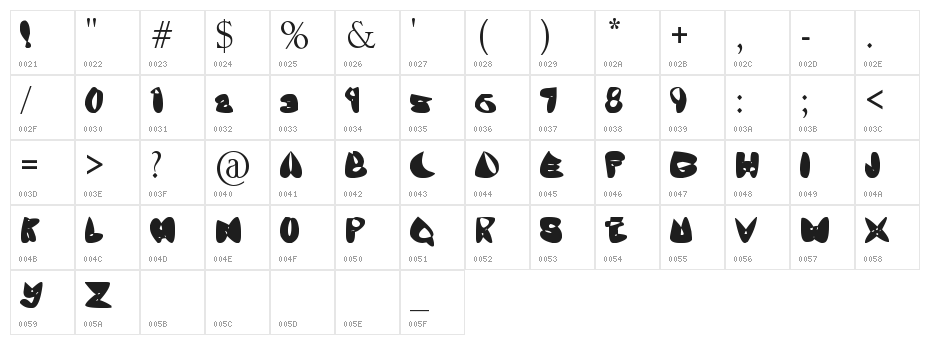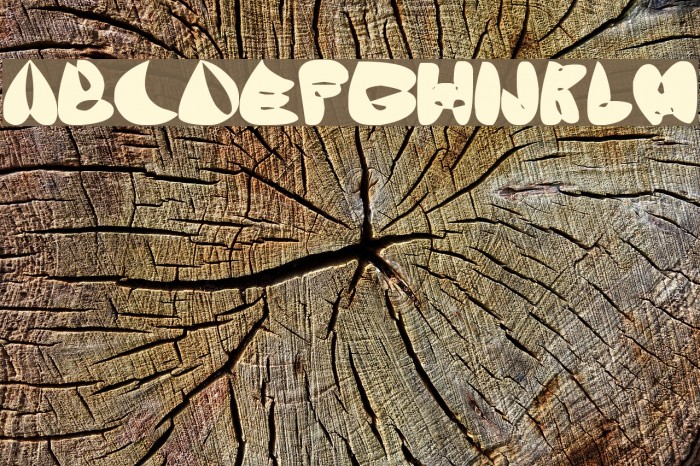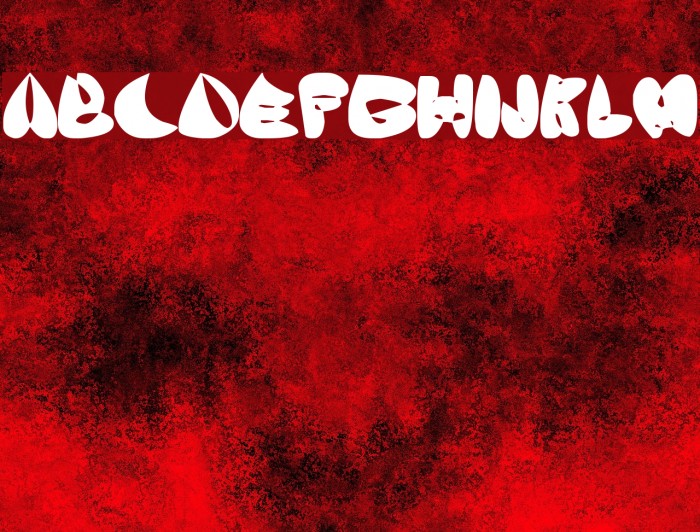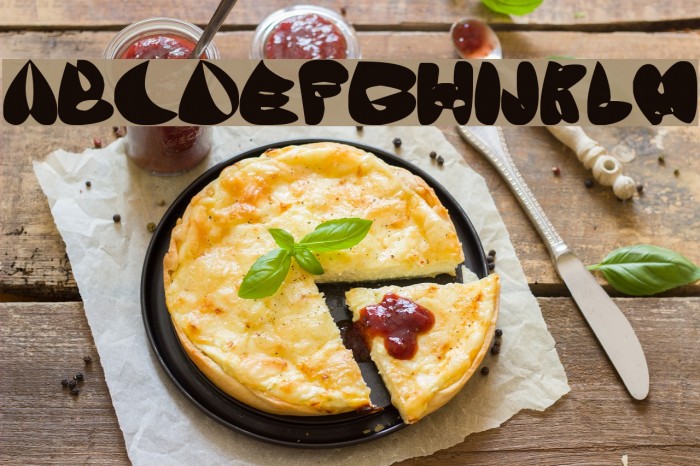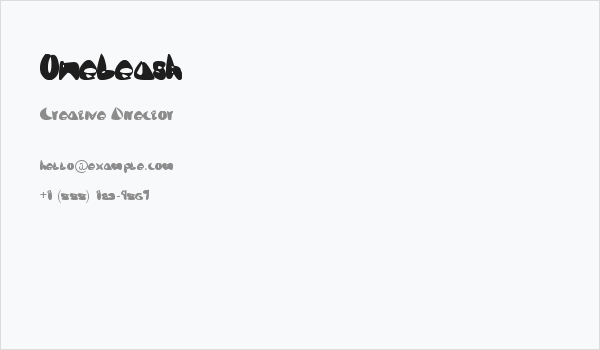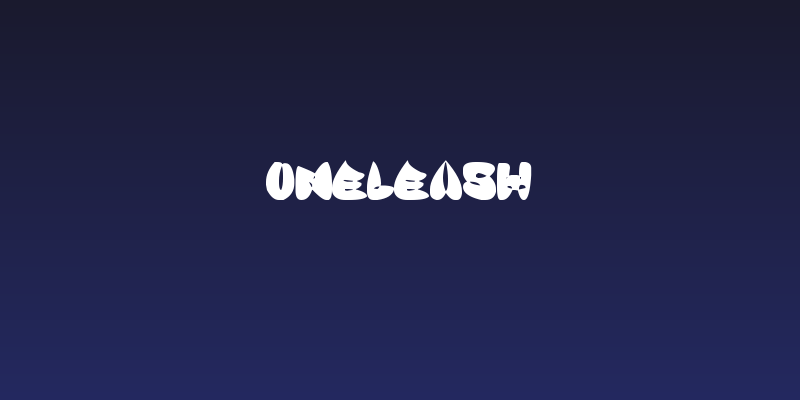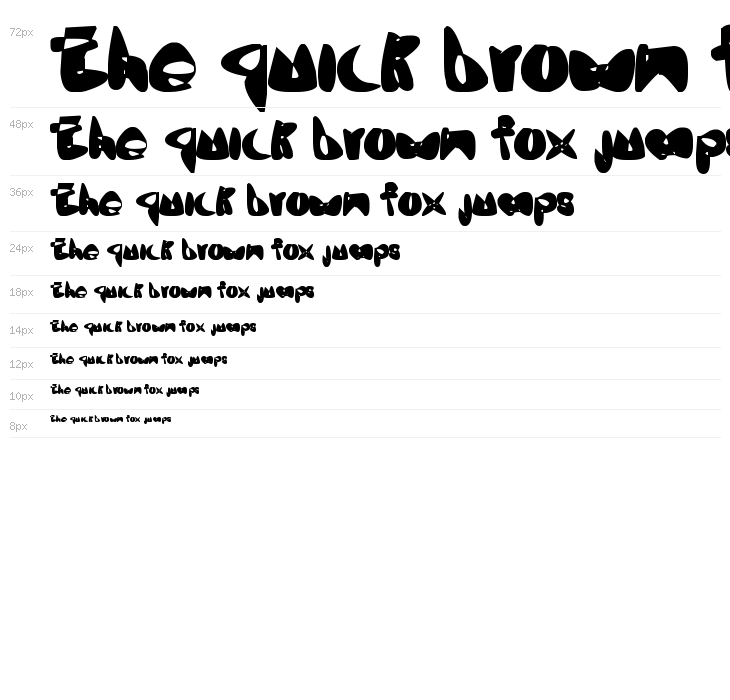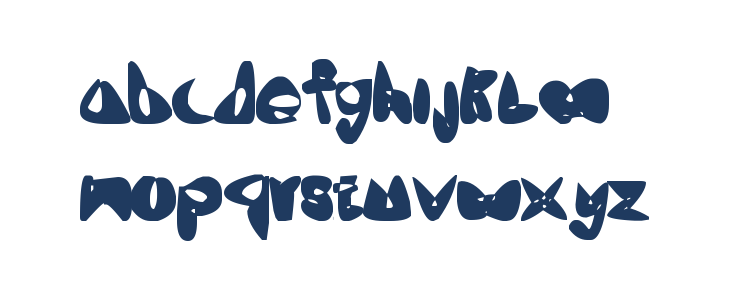
OneLeash Font
OneLeash Description
This font features a bold and playful design with highly stylized, rounded characters. Each letter is uniquely crafted with a sense of whimsy and creativity, making it stand out with its thick, heavy strokes and irregular shapes. The characters have a dynamic flow, almost as if they are in motion, which adds to the font's lively and energetic feel. The font's overall appearance is quite decorative, with a strong emphasis on individuality and artistic expression. It is perfect for projects that require a fun and eye-catching typeface.
| Overall Style | Playful and Artistic |
| Use Case | Logos, Headlines, Posters |
| Proposed Projects | Ideal for children's book covers, playful branding, party invitations, and creative posters. |